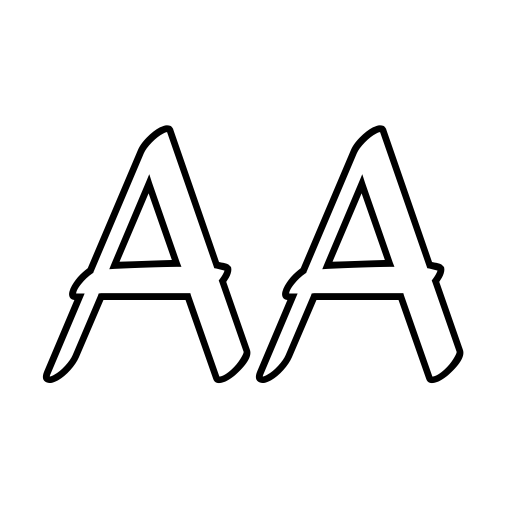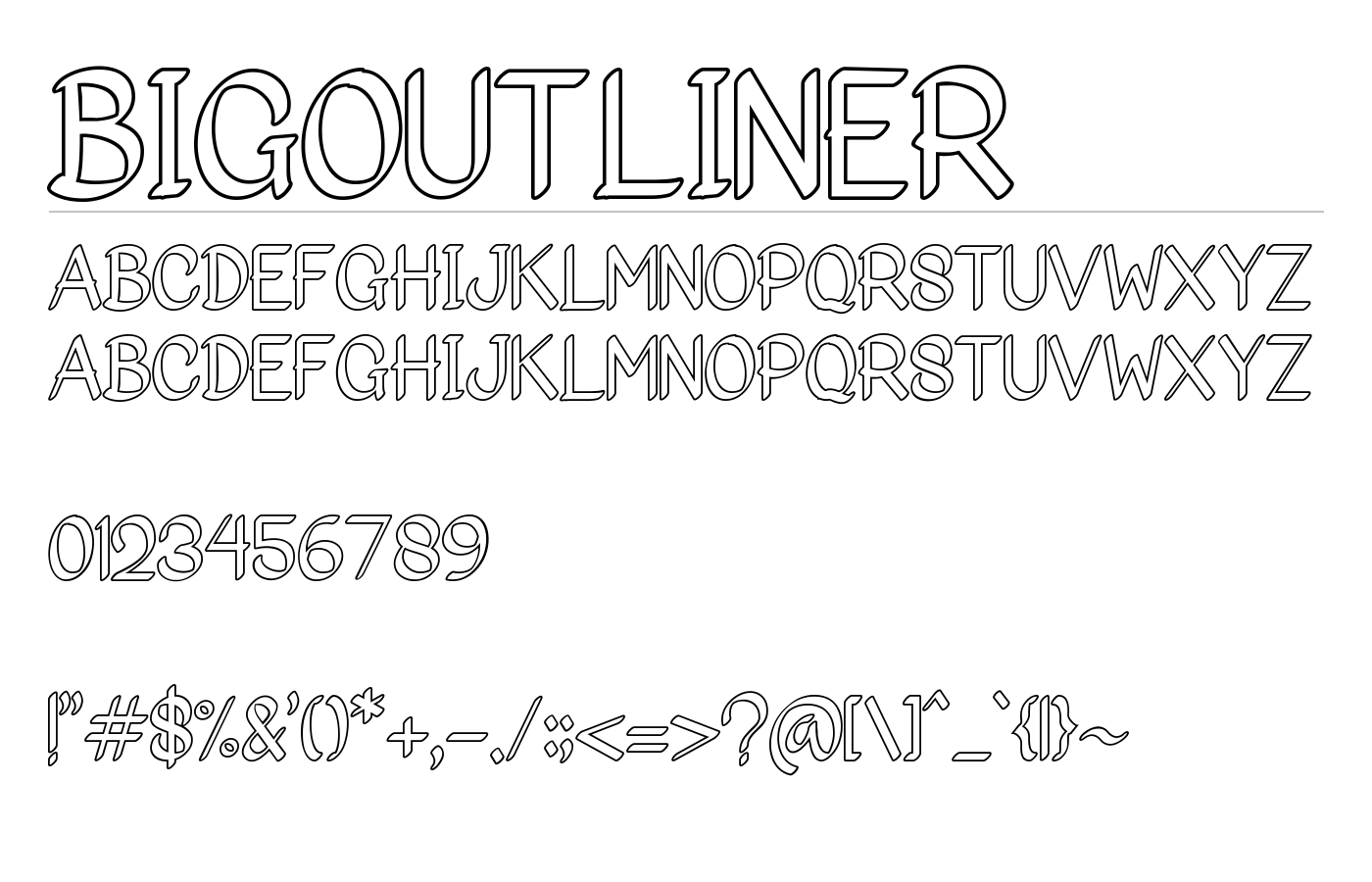
Bigoutliner is a playful and bold outlined sans serif font with a tall x-height and slightly narrow proportions, giving it a lively yet structured look. Its double-line stroke style adds an energetic, hand-drawn feel, making it ideal for fun, casual branding, posters, and headlines that need a strong visual impact without being too formal. This font works great when you want to attract attention in a friendly, creative way.
Bigoutliner Font